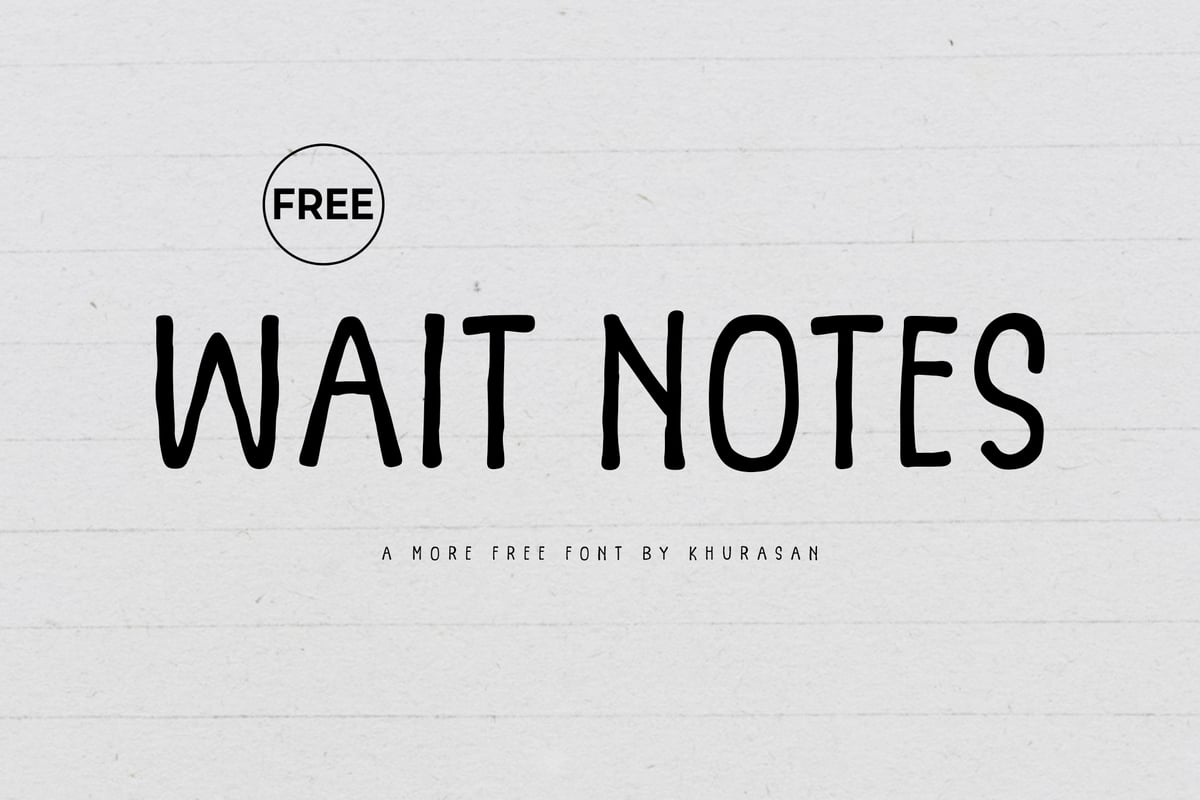
Free Wait Notes - Free Handwriting Font
Wait Notes delivers playfully confident charm with effortless handcrafted appeal for every creative project.
Looking for a typeface that embraces a relaxed, carefree attitude? Wait Notes is your perfect match! Inspired by spontaneous doodles and delicate marker sketches, this font brings an authentic, hand-drawn aesthetic to any creative endeavor. From birthday celebrations to trendy apparel designs, Wait Notes makes every project feel naturally effortless and genuinely charming.